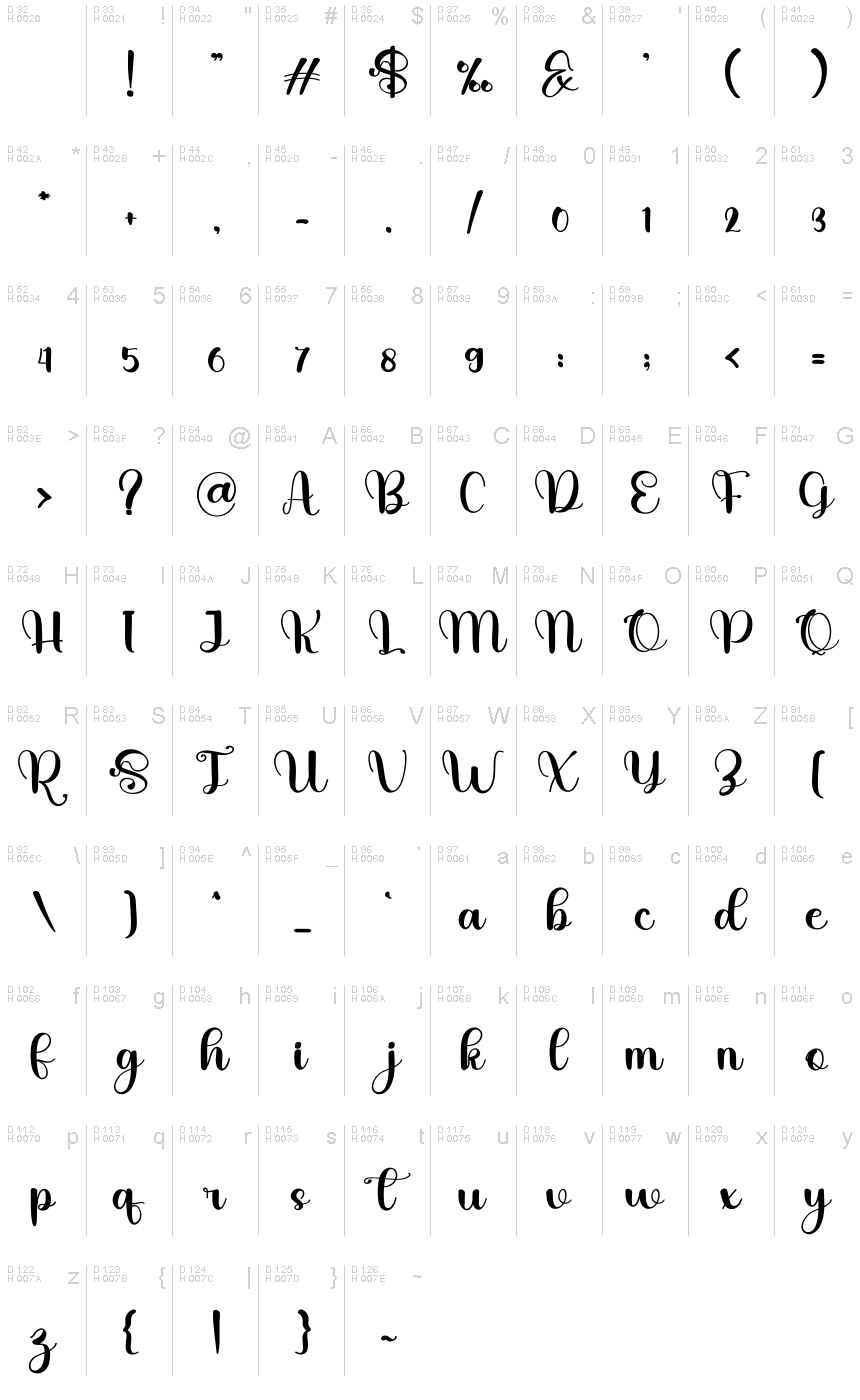
Mailist
Mailist by Inermedia Studio is a captivating calligraphic font that exudes elegance and sophistication. Its flowing, script-like strokes create a sense of graceful movement, lending an air of refined artistry to any design. The font's distinctive ligatures and carefully curated character shapes seamlessly blend together, evoking the timeless beauty of handwritten correspondence. Mailist's delicate balance between structure and fluidity makes it a versatile choice for branding, editorial layouts, and custom typography projects, where a touch of refined elegance is desired.
This calligraphic font's adaptability allows it to shine in a variety of design contexts, from high-end product packaging to elegant wedding stationery. Mailist's refined aesthetic lends itself beautifully to luxury brand identities, where its sophisticated style can convey a sense of exclusivity and refinement. Similarly, the font's flowing strokes and timeless appeal make it an excellent option for editorial designs, such as book covers and magazine titles, where a touch of artistry is required.